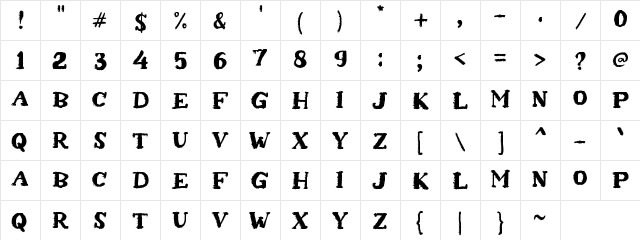
a Abrasion Regular Free Font
a Abrasion Regular
Designer: Wahyu Eka Prasetya
Design Context for a Abrasion
a Abrasion is a composed and adaptable typeface that performs quietly and consistently across a wide range of design contexts.
Pro Tip: Use a Abrasion in both headline and body roles to test its range before committing to a single application.